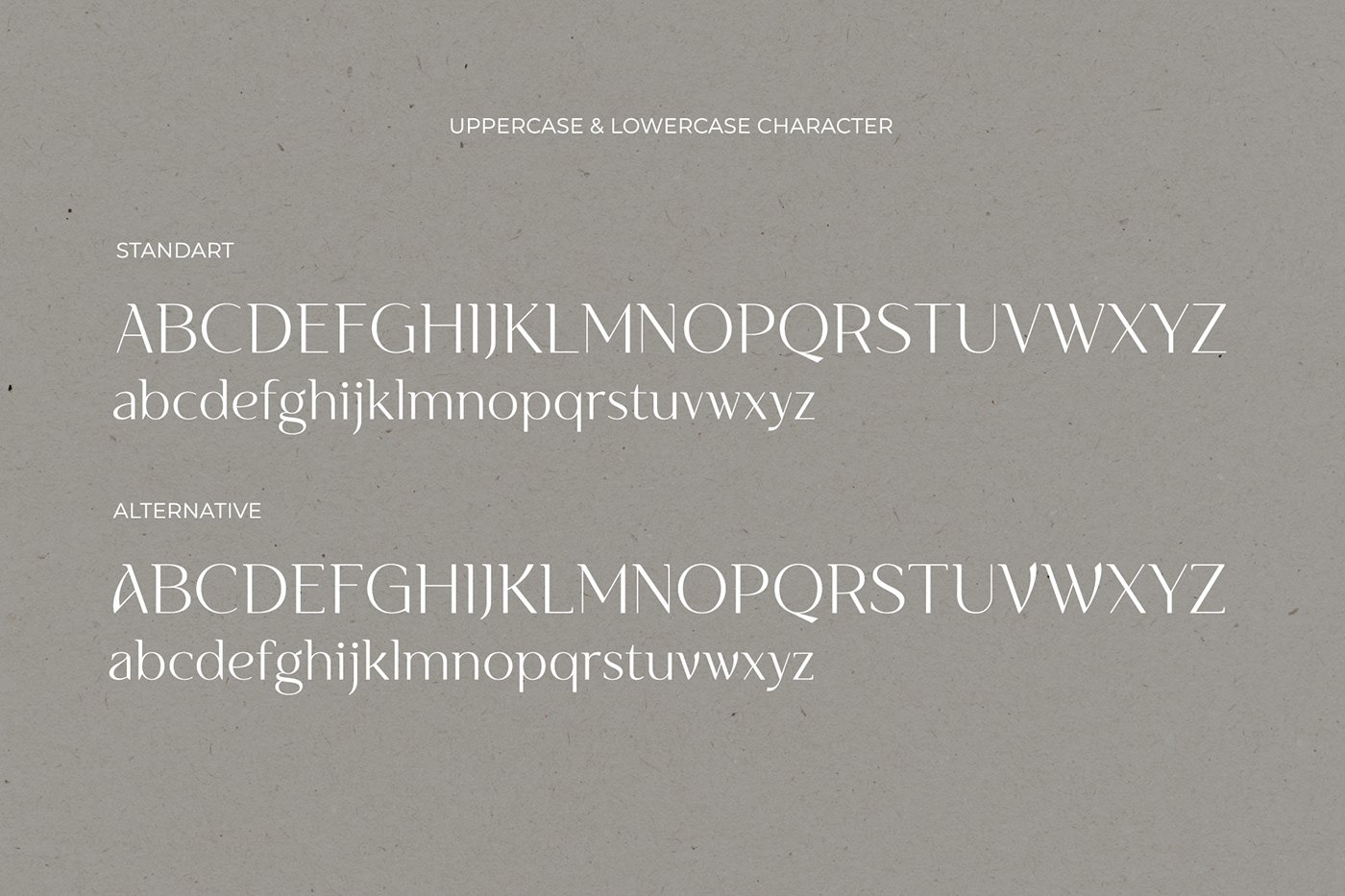
NT Vanilla is a new classic semi-serif font created by Artem Nevsky.
This font needs to be in your collection and is perfect for your next design project. NT Vanilla includes a standard set of characters, as well as many alternates for both upper and lowercase characters, while supporting over 200 Latin-based languages.